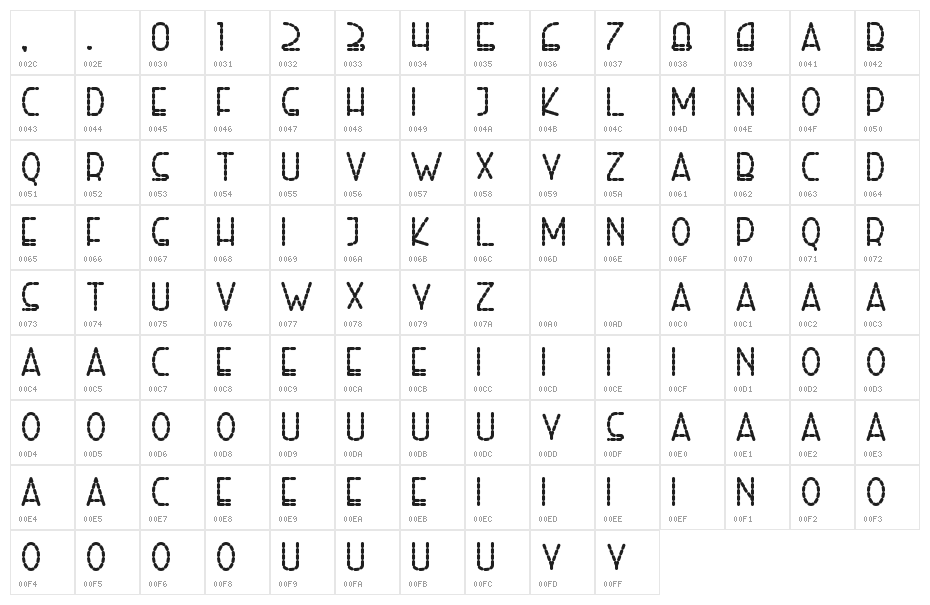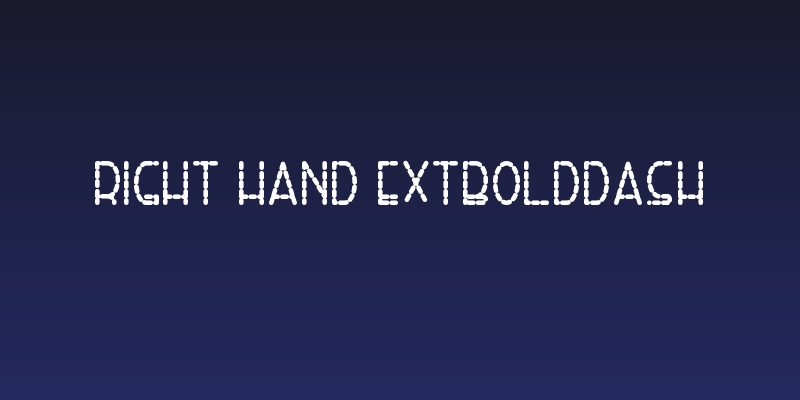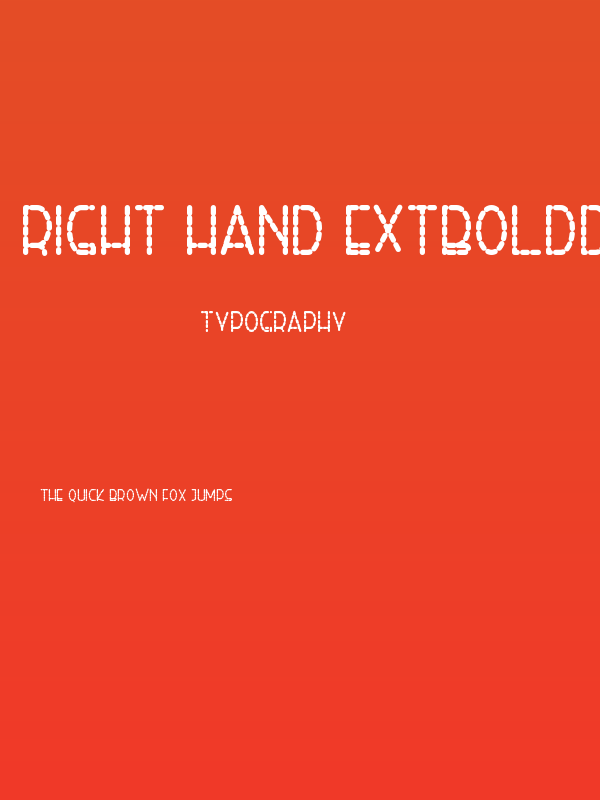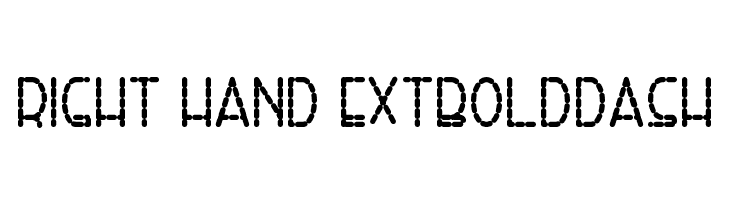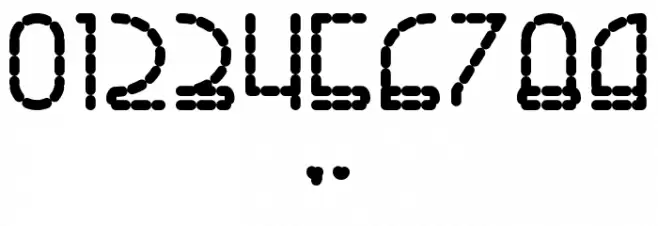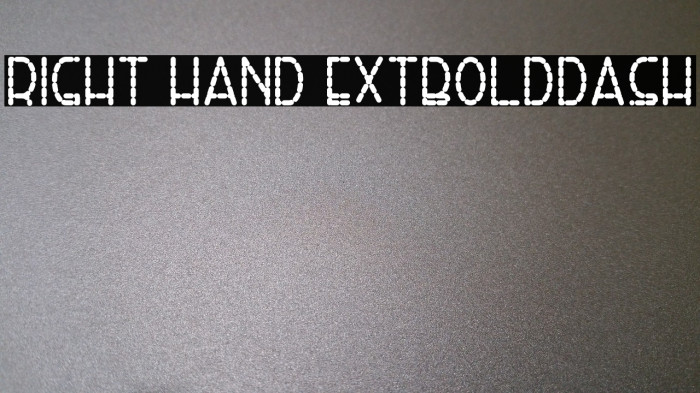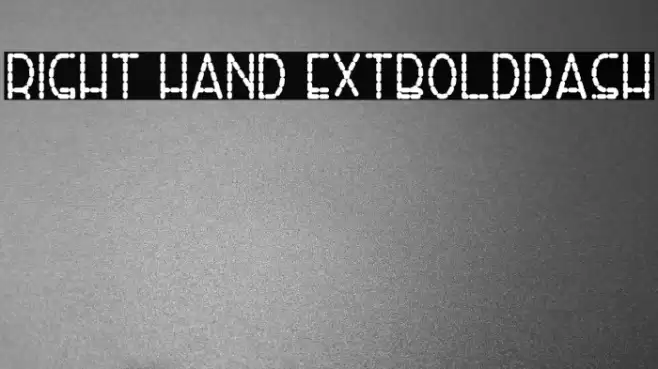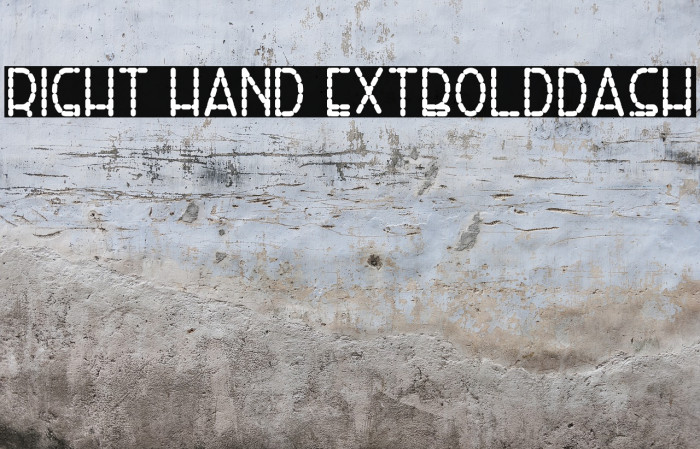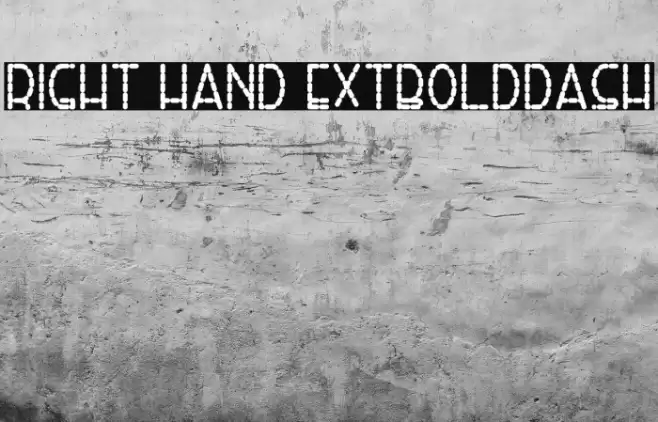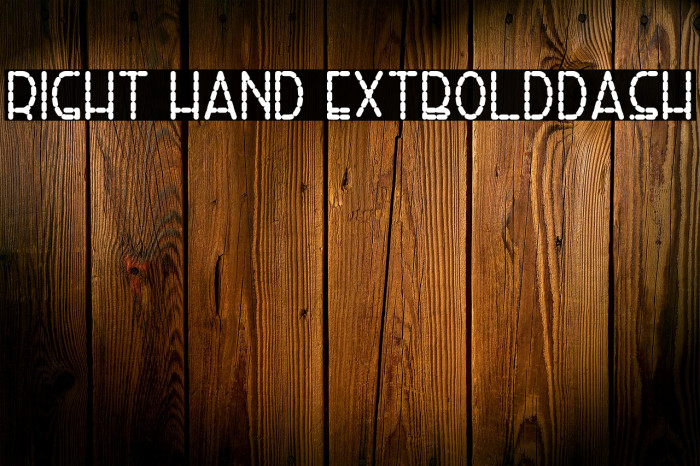
Right Hand ExtBoldDash Font
Right Hand ExtBoldDash Description
This font features a unique and modern design characterized by its bold, dashed lines forming each character. The uppercase and lowercase letters, as well as numbers, are constructed with a series of evenly spaced, rounded dashes that create a cohesive and visually striking appearance. The font maintains a consistent width and weight throughout, offering a uniform look. Its geometric and structured style makes it stand out, while the rounded edges of the dashes add a touch of softness to the overall design. This font is ideal for creative projects that require a distinctive and contemporary aesthetic.
| Proposed Projects | Ideal for branding, posters, digital art, and any project requiring a modern, eye-catching typeface. |